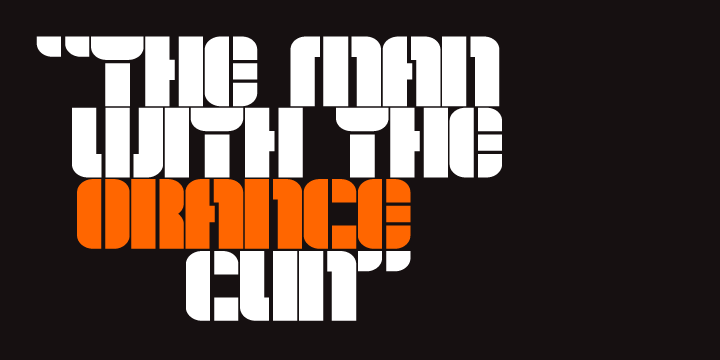
OrangeRoyale™
by The Northern Block
The OrangeRoyale Font Family was designed by Jonathan Hill and published by The Northern Block. OrangeRoyale contains 8 styles and family package options. More about this family
A round modular typeface inspired by British movie posters of the 1970s such as Stanley Kubrick's
A Clockwork Orange
.
Designers: Jonathan Hill
Foundry: The Northern Block
Original Foundry: The Northern Block